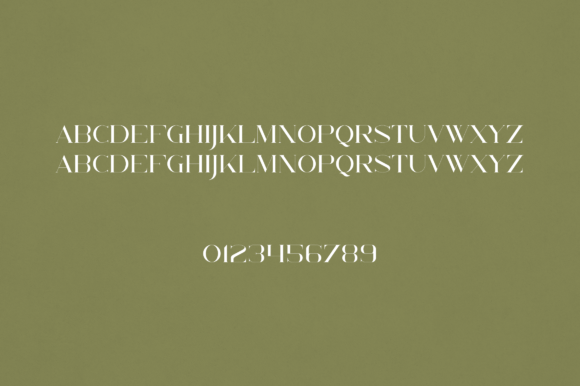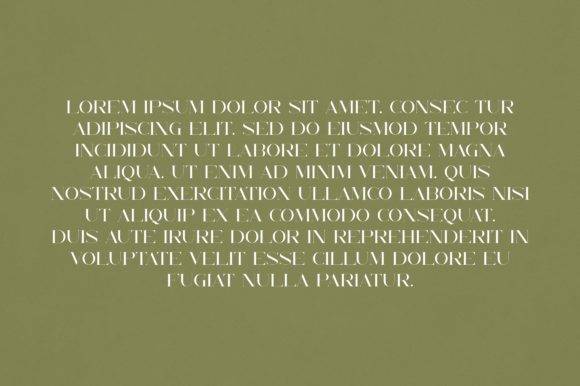
Introduction to Kindra Font
Have you ever found yourself scrolling through design inspiration boards, searching for that perfect font to elevate your creative project? The struggle is real – until now. As a designer, you know how crucial typography is in making your designs stand out. And that’s exactly where the Kindra Font comes in – a game-changing addition to your design resource arsenal.
With its elegant and versatile serif design, the Kindra Font is the perfect choice for any branding project, from home-ware designs to product packaging and magazine headers. Its high-quality design makes it a valuable asset for designers looking to take their typography to the next level. And the best part? It’s available for free download, making it a must-have for any design project.
Key Features of Kindra Font
- High-quality design resource ideal for creative projects, including digital art, graphics, and more.
- Features a transparent background, allowing for seamless integration into various design environments.
- Includes a comprehensive character set, covering a wide range of languages and special characters.
- Designed with a unique, modern aesthetic, making it perfect for contemporary design projects.
Honest Review: Kindra Font
I recently had the opportunity to work with the Kindra Font for a creative project and I must say, it’s been a game-changer. This design resource is a high-quality addition to any project, with a unique and elegant style that adds a touch of sophistication.
- ✨ High-quality design with crisp lines and clear typography
- ✨ Beautifully crafted for a wide range of creative projects
- ✨ Transparent background, making it easy to customize and integrate
- ⚠️ Limited font weights and styles (although the ones available are well-designed)
- ⚠️ May not be suitable for projects requiring a bold, attention-grabbing font
Overall, I’m thoroughly impressed with the Kindra Font. It’s a fantastic free download that’s perfect for designers looking to add a touch of elegance to their creative projects. While it may have some limitations, the quality and design make it a must-have in any design arsenal.
How to Use Kindra Font
The Kindra Font is a high-quality design resource perfect for any creative project. With its transparent background, this font is versatile and easy to use in various design applications.
Using Kindra Font in Design Applications
You can use the Kindra Font in a variety of design applications, including:
– Use the Kindra Font to create stunning graphics and designs for social media, marketing materials, and more.
– Import the Kindra Font into your Adobe Creative Cloud applications and use it to create professional-grade designs.
– Add a touch of elegance to your presentations and documents with the Kindra Font.
Tips for Getting the Most Out of Kindra Font
To get the most out of the Kindra Font, be sure to:
- Pair the Kindra Font with other high-quality design resources for a cohesive look.
- Take advantage of the font’s transparent background to create unique and eye-catching designs.
The Kindra Font is perfect for a variety of design projects, including:
- Business cards and marketing materials.
- Blog posts and social media graphics.
Alternatives to Kindra Font
Great Vibes Font is a beautiful, elegant script font perfect for creative projects that require a touch of sophistication. It’s ideal for designing wedding invitations, branding materials, or any other project where a high-quality, handwritten font is needed. Great Vibes Font is a great alternative to Kindra Font when you want a more refined and luxurious feel.
Ostrich Sans Font is a modern, sans-serif font that’s great for designing digital products, such as apps, websites, and social media graphics. Its clean and minimalist design makes it perfect for creating a transparent background or a bold, eye-catching design. When compared to Kindra Font, Ostrich Sans Font is more geometric and less ornate, making it ideal for digital design projects.
Playfair Display Font is a luxurious, high-quality font that’s perfect for designing high-end branding materials, such as business cards, letterheads, and brochures. Its elegant and sophisticated design makes it a great alternative to Kindra Font when you want to convey a sense of exclusivity and refinement. Playfair Display Font is also great for creating a sense of drama and luxury in your design projects.
Does the Kindra Font have a transparent background?
Yes, the Kindra Font has a transparent background, making it easy to use in designs with complex backgrounds or layered elements. This feature is especially useful for designers working on creative projects that require a high level of visual sophistication.